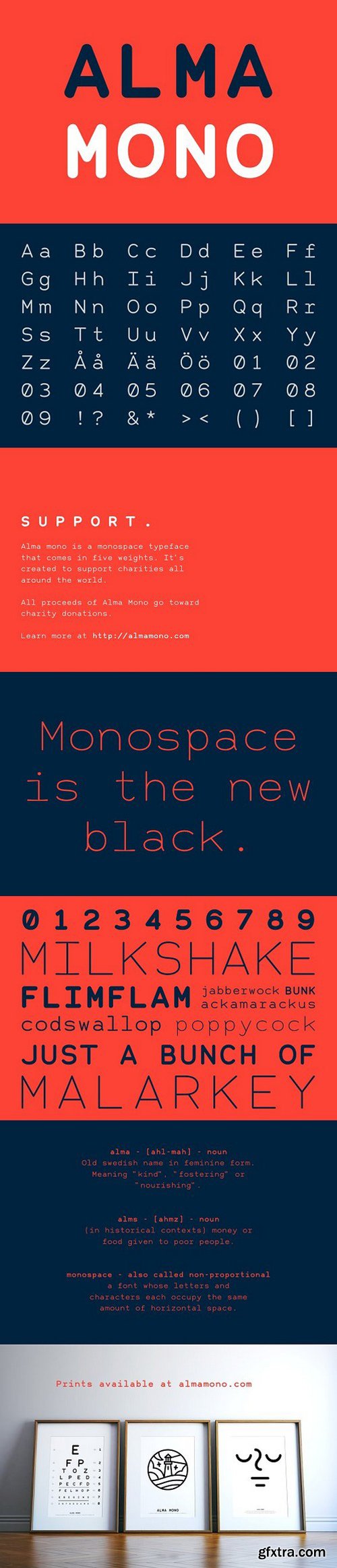
Alma Mono - ALL PROCEEDS TO CHARITY
Alma Mono is a monospaced typeface. Monospace is where the letters and characters in the font each occupy the same amount of horizontal space. That means that the "i" has the same width as the "m". Like on the old typewriters.